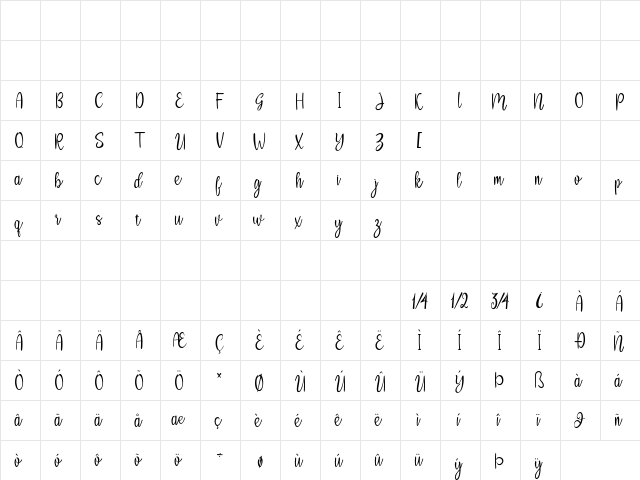
Syakaila Script Regular
| Designer | bejeletter |
Design Context for Syakaila Script Typeface
Syakaila Script brings a calligraphic fluidity to the page — its connecting strokes and expressive curves give it an unmistakably human quality.